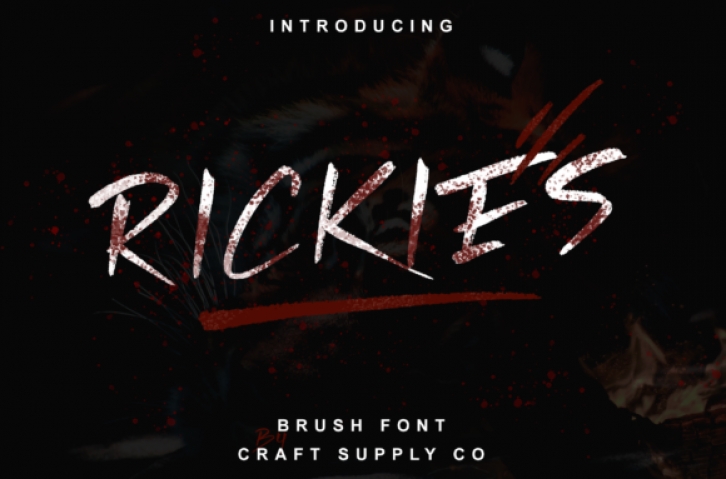
Rickies is a fun, all caps brush stroke font that looks suitable in a wide range of alternative or grunge project types. This font has tons of texture, and will add a ton of impact to your designs.